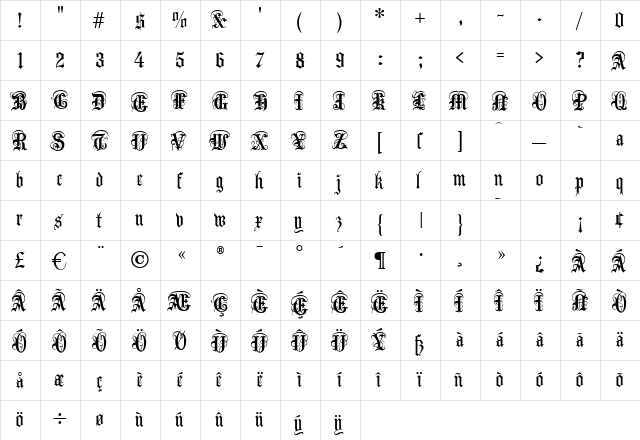
Anglican Text UNZ1L Regular
Design Context for Anglican Text UNZ1L Typeface
Anglican Text UNZ1L is a composed and adaptable typeface that performs quietly and consistently across a wide range of design contexts.